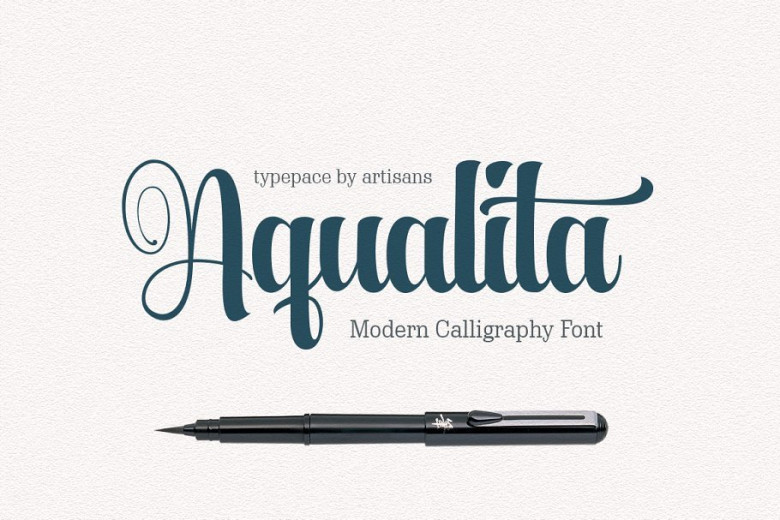
Hi designer. Aqualita For those of you who are needing a touch of elegance and modernity for your designs, this font was created for you! Aqualita is an created by artisans. Aqualita is bold and italic script font, And has a flexible character, there is also the top of each glyph slightly sloping. Very perfect for invitations, signatures, logo designs, brands, and resources from this font can also be in the title of books and magazines.